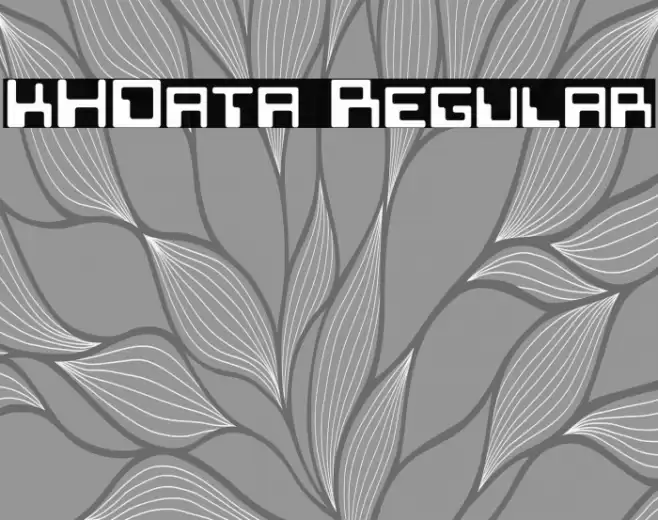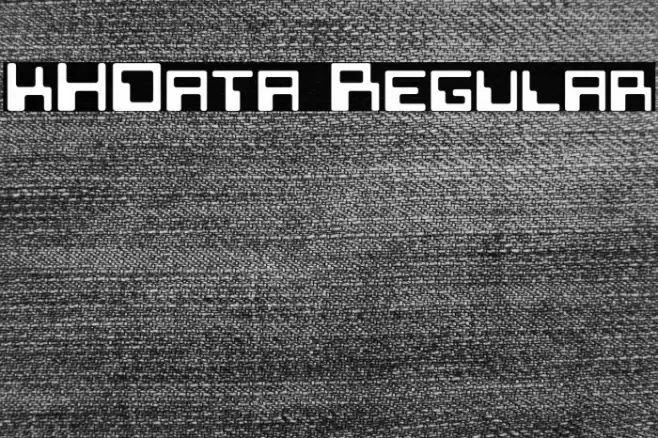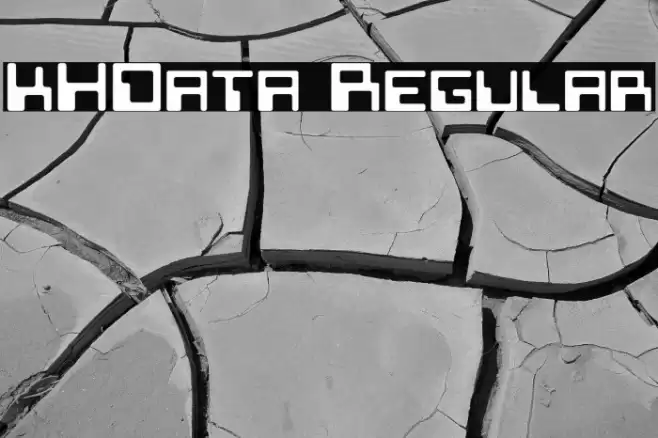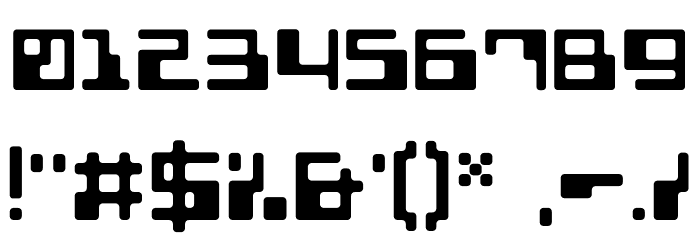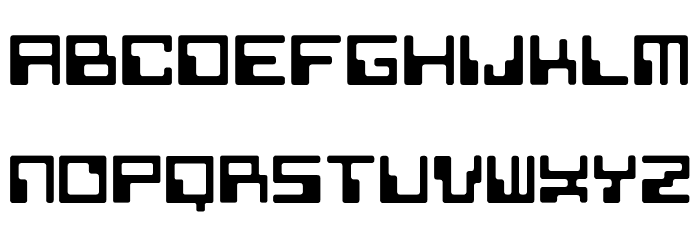
KHData Regular Font
KHData Regular Description
This font features a bold, geometric design with a futuristic and digital aesthetic. The characters are constructed with thick, blocky strokes and rounded corners, giving them a distinctive, modern appearance. The uniformity in width and height across the characters creates a cohesive and structured look. The font's style is reminiscent of digital displays or retro video game graphics, making it ideal for projects that require a tech-savvy or sci-fi theme. The numerals and special characters maintain the same bold and structured design, ensuring consistency throughout.
A bold, geometric font with a futuristic, digital aesthetic from Regular fonts.
- Proposed Projects: Ideal for tech-themed designs, video game graphics, digital displays, and sci-fi projects.